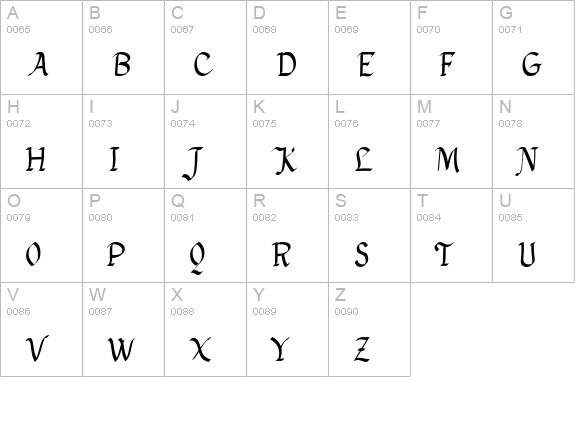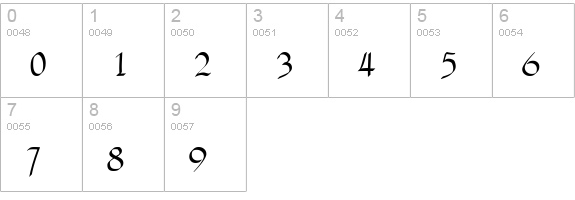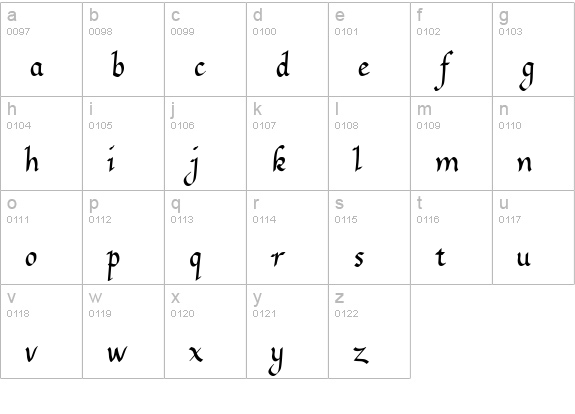
GretchenHello Bold Font Details
GretchenHello Bold is a strong, high-contrast variant in the GretchenHello typeface family \xE2\x80\x94 well suited to headlines, attention-grabbing titles, and strong calls-to-action.